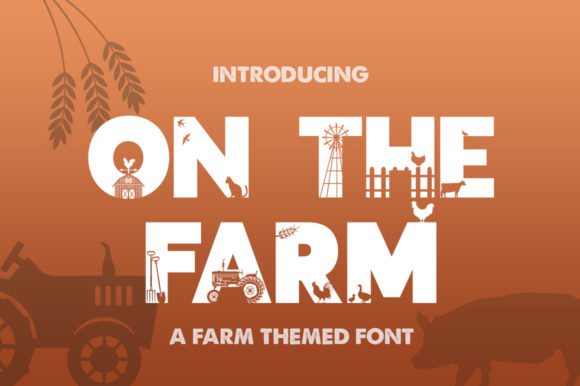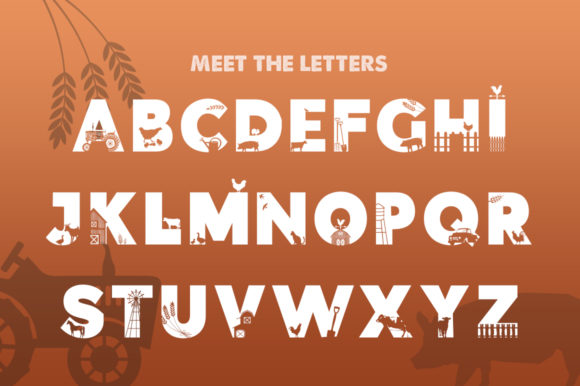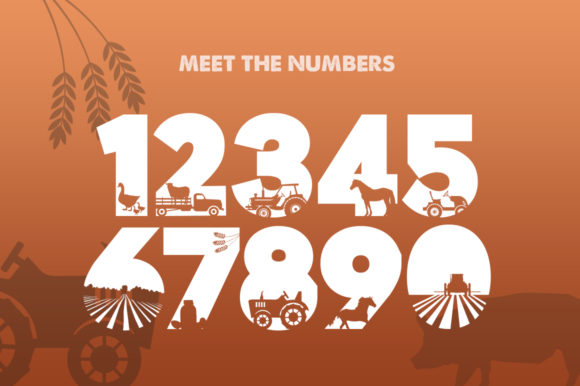
On the Farm Font
About the On the Farm Font
Introducing the On the Farm Font, a beautifully crafted typeface designed to elevate your creative projects. On the Farm is a cute and casual display font with an incredibly friendly feel. Use this gorgeous and unique font to bring any DIY project to life!
On the Farm’s friendly, casual style makes it ideal for headlines, short text blocks on packaging, or playful branding elements for children’s products or artisan food companies. Its charming character shines in posters and social media graphics where a touch of whimsy is desired. However, its decorative nature makes it less suitable for body text or UI elements requiring high readability.
For optimal visual harmony, pair On the Farm with a clean sans-serif like Open Sans for body copy or a more structured serif such as Playfair Display for a touch of contrast and sophistication. A geometric sans-serif would also create a nice balance, offering a modern counterpoint to the font’s handcrafted feel.
The overall personality of On the Farm is undeniably cheerful and approachable, projecting a sense of warmth and rustic charm. It’s a font that speaks to authenticity and handcrafted quality.
On the Farm Font Usage Examples
On the Farm Font Example